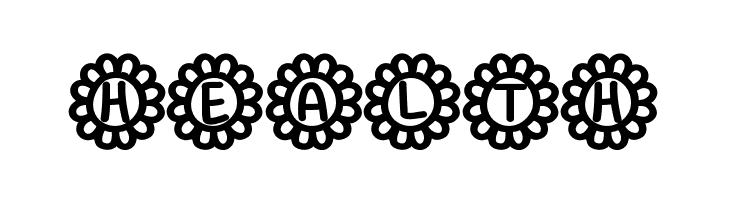
A playful handwritten font with smooth curves and a casual style.
A playful and eclectic decorative font with unique character designs.
A playful and decorative font with unique patterns and textures in each character.
A playful font with kiss marks on each letter, perfect for romantic and fun designs.
A playful, handwritten font with a casual and friendly appearance.
A playful, rounded font with a handwritten feel and consistent spacing.
A clean, geometric font with a minimalist and modern design.
A playful, handwritten font with rounded, irregular characters.
A playful, narrow handwritten font with a casual and friendly style.
A playful, hand-drawn font with a sketchy, artistic style.
A playful, bold outline font with a comic book feel.
A playful, hand-drawn font with tall, narrow letters and a whimsical style.
A playful, casual handwritten font with smooth curves and a relaxed style.
A playful, casual handwritten font with smooth, flowing lines and a lively vibe.
A playful, informal handwritten font with smooth, rounded strokes.
A playful, handwritten font with a lively and informal style.
A playful, hand-drawn font with rounded, bold characters and a casual style.
A playful serif font with script-like elements, offering elegance and approachability.
A playful, rounded font with smooth curves and a friendly appearance.
A playful, hollow, and rounded font with a casual vibe.
A bold, italicized handwritten font with a casual and dynamic style.
A casual, handwritten font with a playful and informal style.
A playful, handwritten font with smooth curves and a casual style.
A thin, italic handwritten font with a casual and modern style.
A thin, hand-drawn font with a minimalist and airy appearance.
A playful, handwritten font with a whimsical and casual style.
A tall, narrow font with sleek, elongated characters and tight spacing.
A decorative font with integrated floral motifs and bold geometric shapes.
A bold, textured handwritten font with an urban, dynamic style.